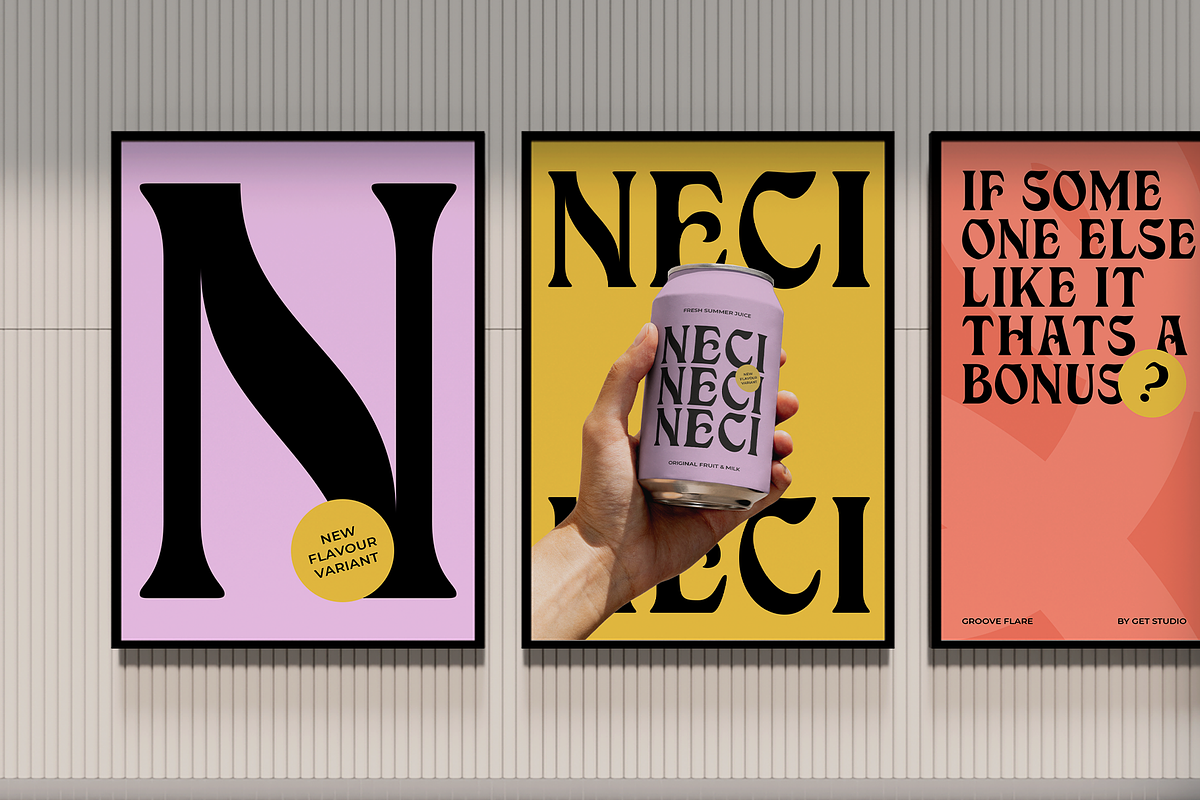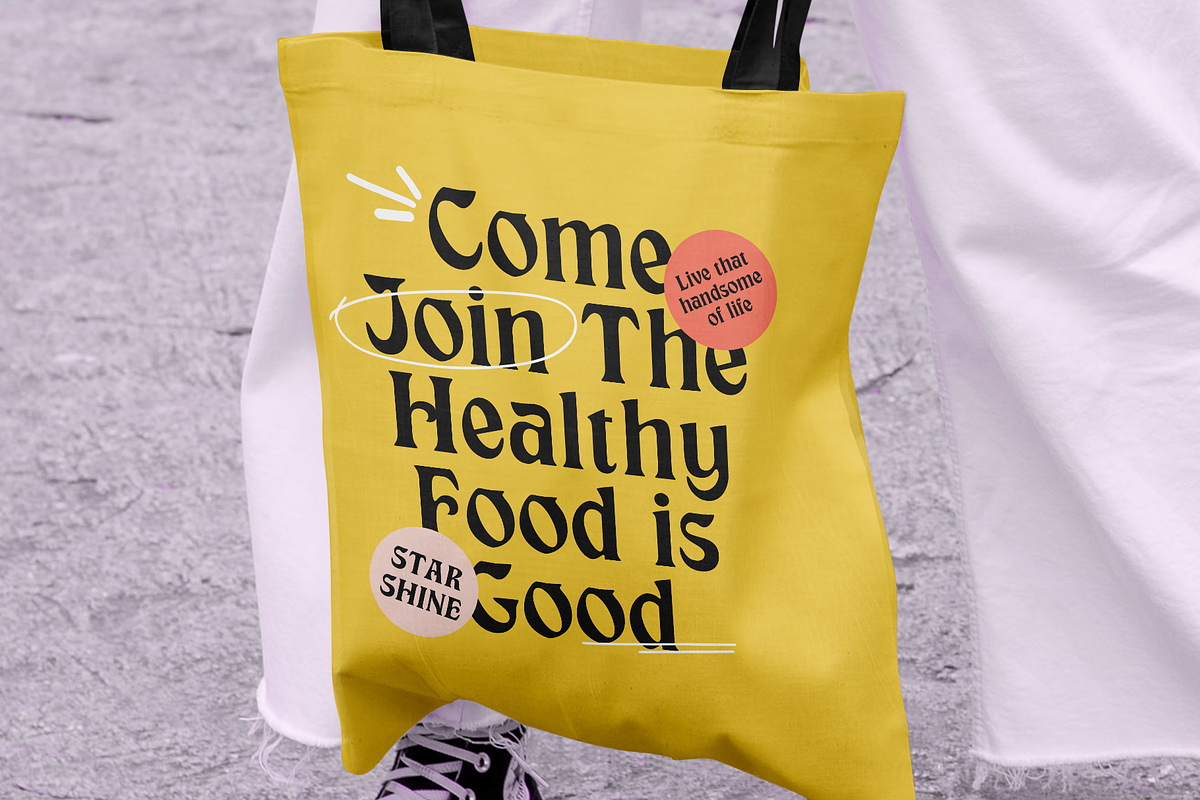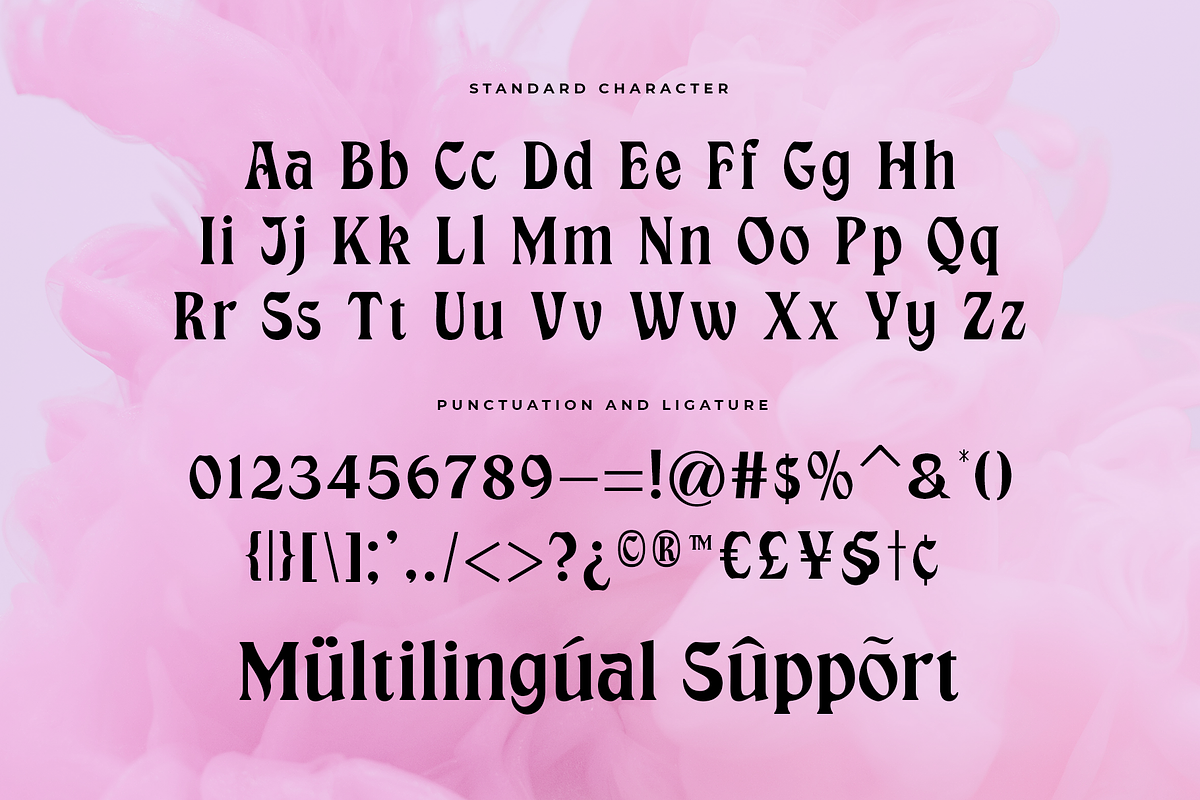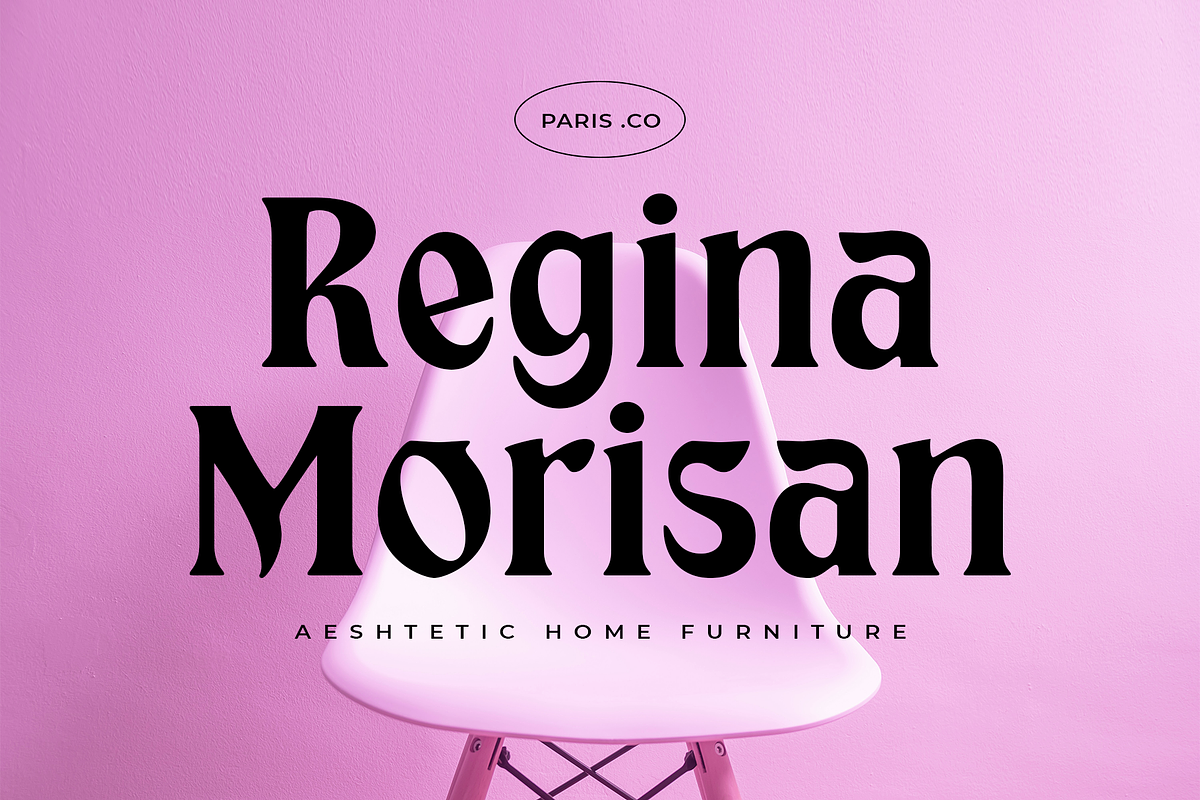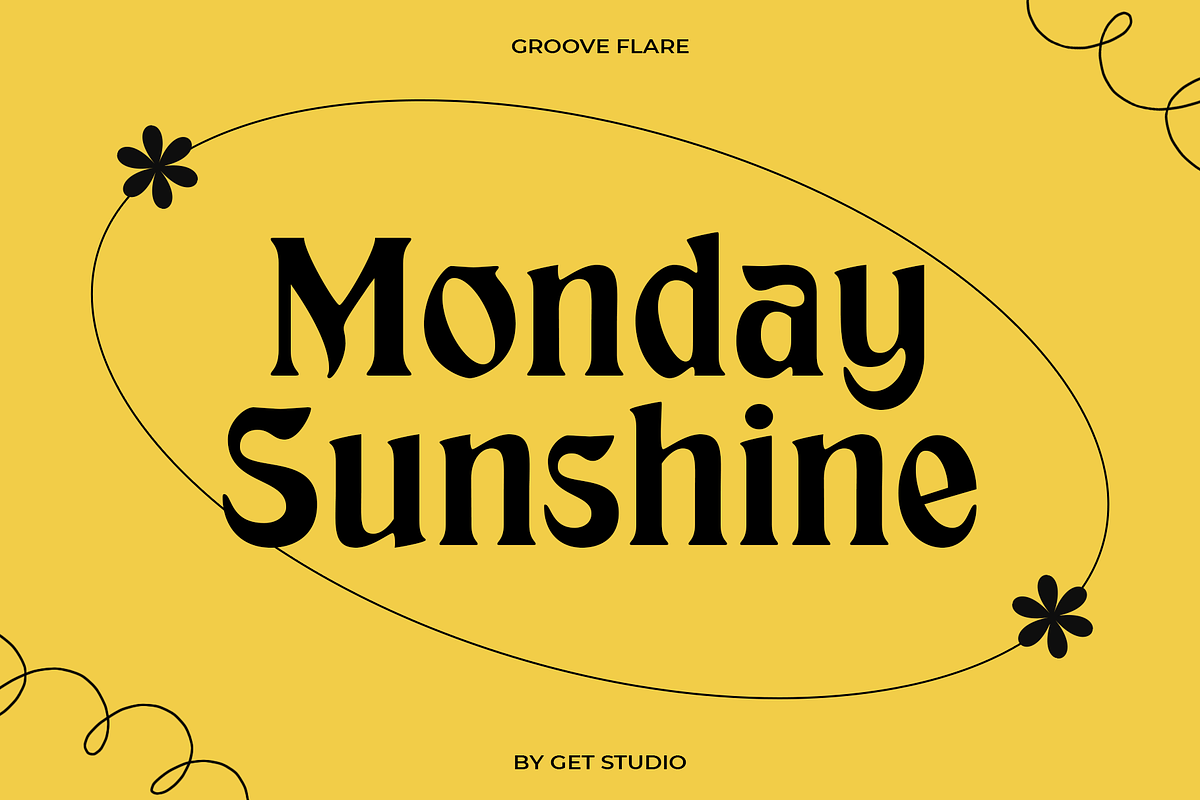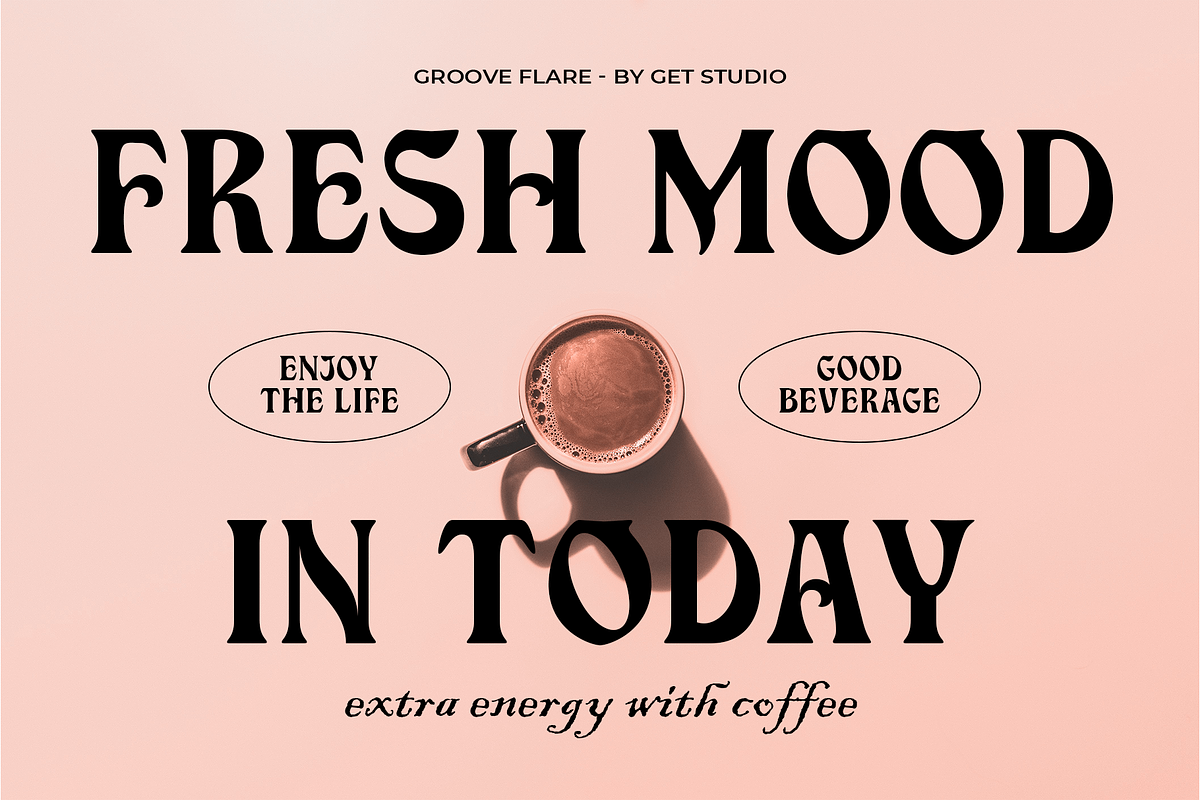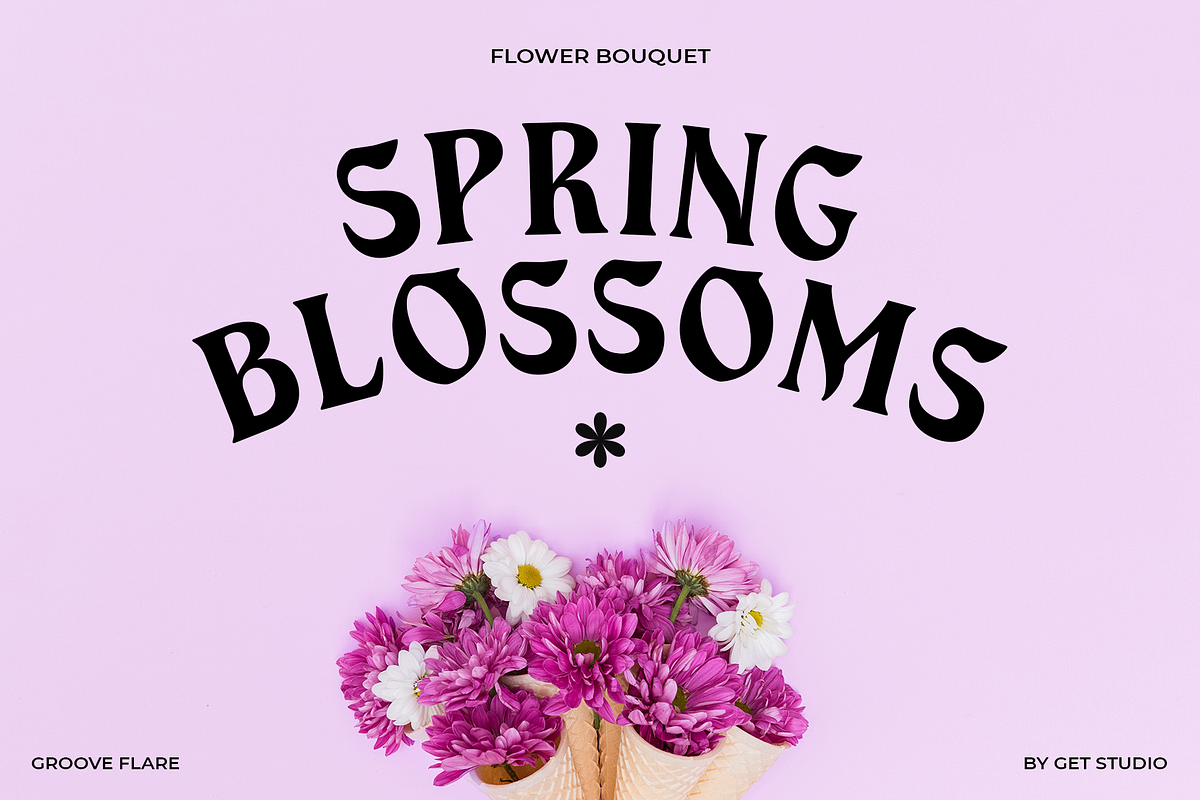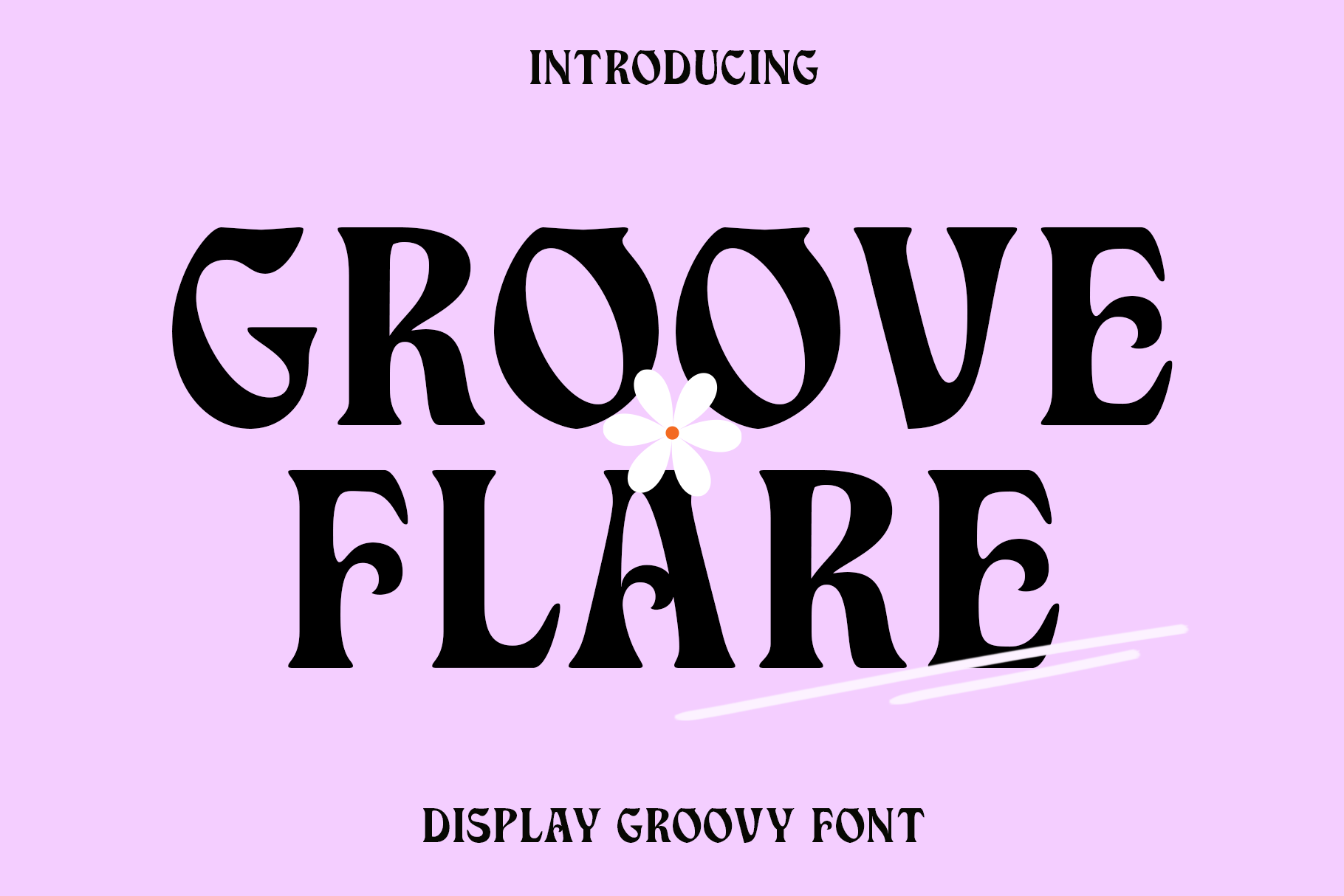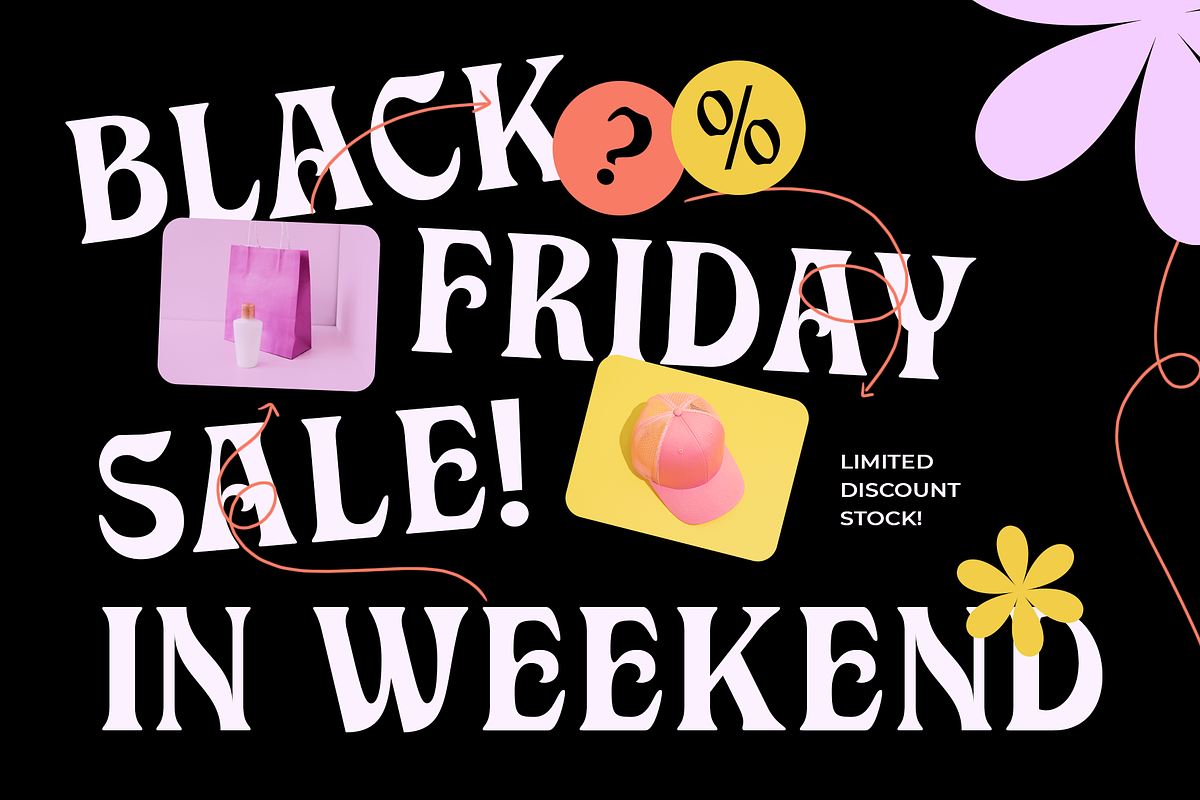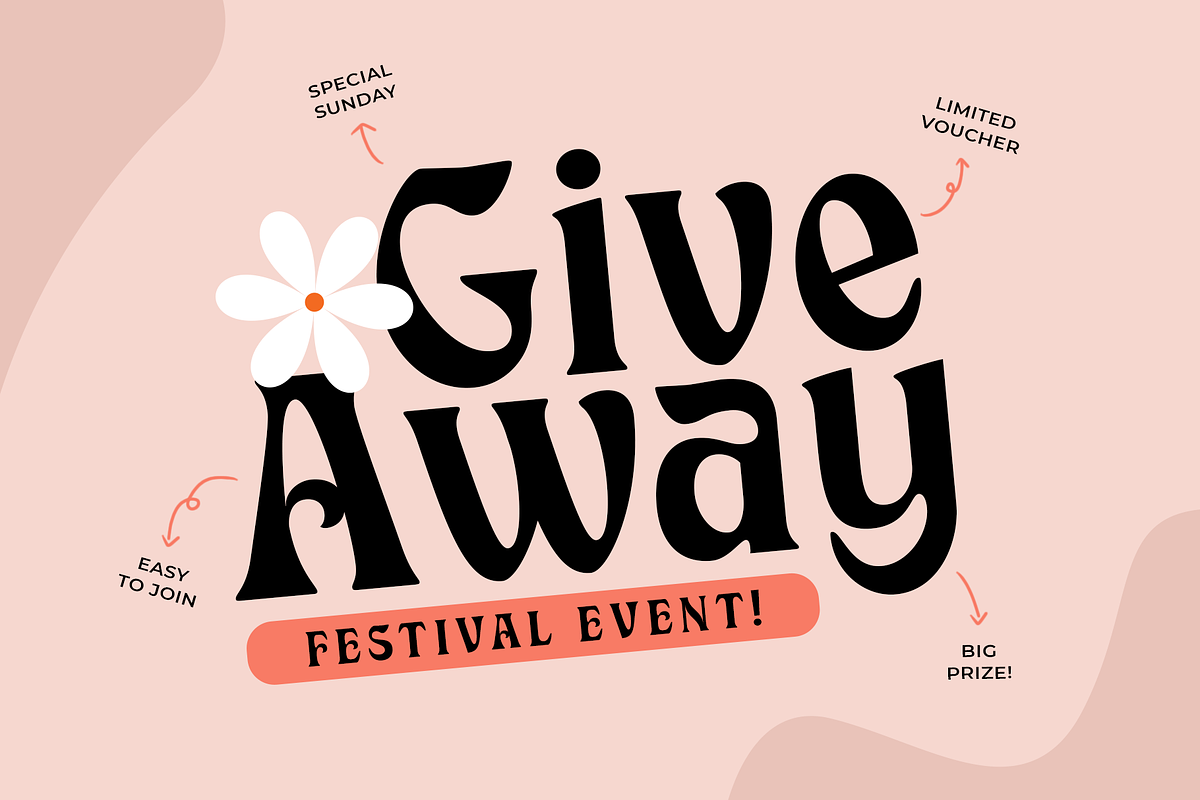
Groove Flare - Display Groovy Font
Introducing "GrooveFlare," a unique display font bursting with retro flair! Perfect for a wide range of design needs, GrooveFlare combines playful curves and bold strokes to bring a touch of the 70s to your projects.
Whether you're creating eye-catching posters, vibrant social media graphics, or funky logos, this font adds a fun, nostalgic twist that will captivate any audience.